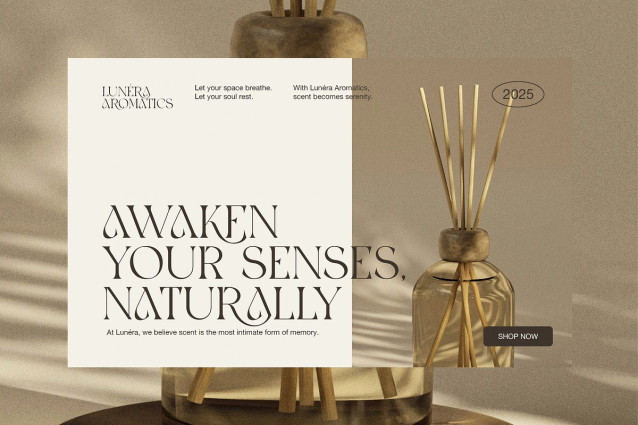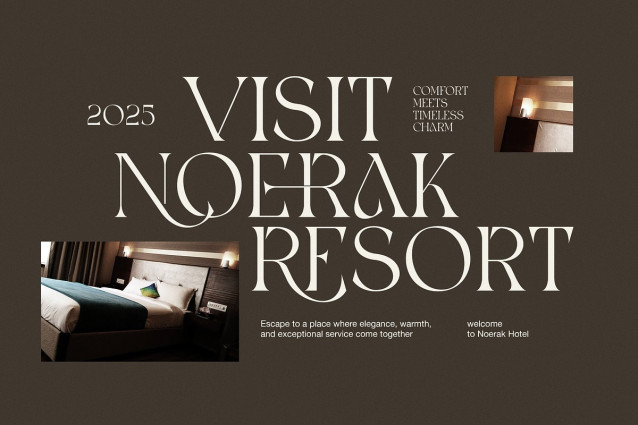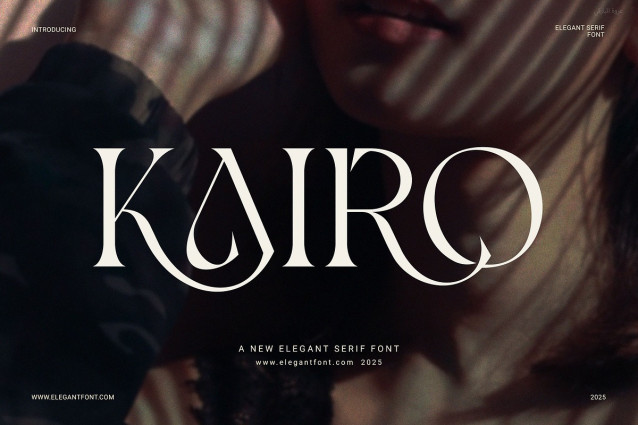
Kairo Serif Font
Kairo Serif Font – Elegant Serif Font is a stylish and modern serif typeface designed to bring elegance and clarity to your creative projects. With clean lines and balanced proportions, this font offers a timeless look that fits perfectly into both classic and contemporary designs.
Thanks to its smooth curves and functional ligatures, Kairo ensures every word looks refined and thoughtfully crafted. Whether you’re working on a logo, website, packaging, or editorial layout, this font will help your design stand out with style.
Why is Kairo the right choice? Because it’s not just elegant—it’s also versatile. From luxury branding to fashion magazines, from boutique labels to advertising, Kairo adapts beautifully to every creative direction. As a result, your design always feels cohesive and professional.